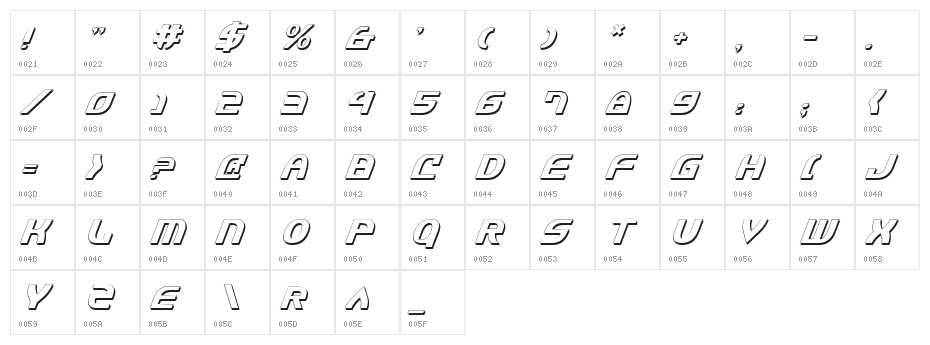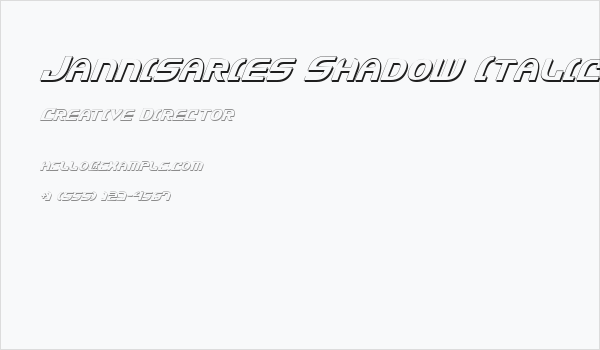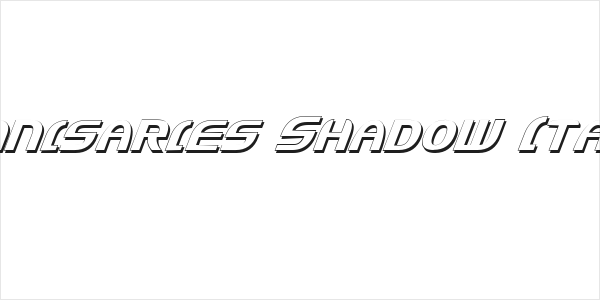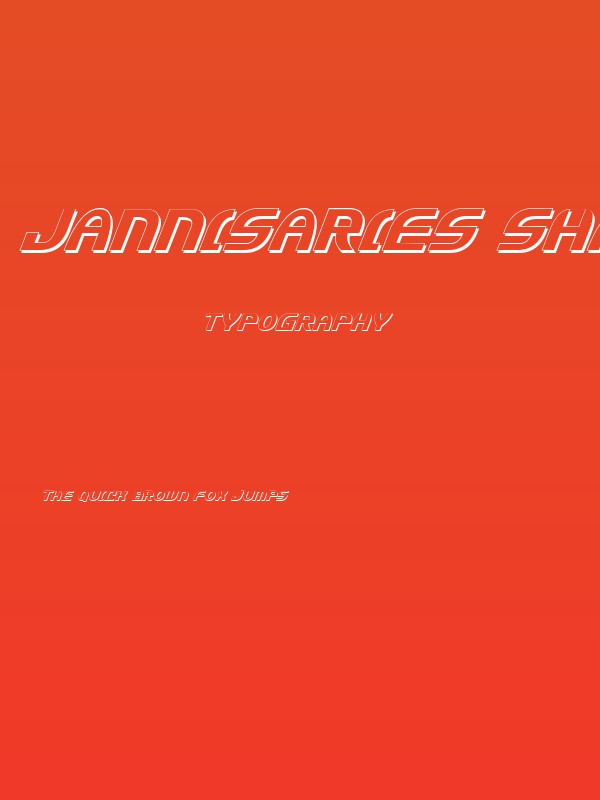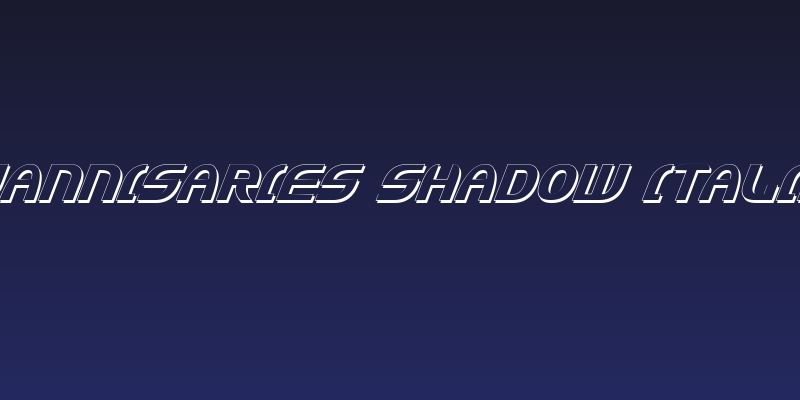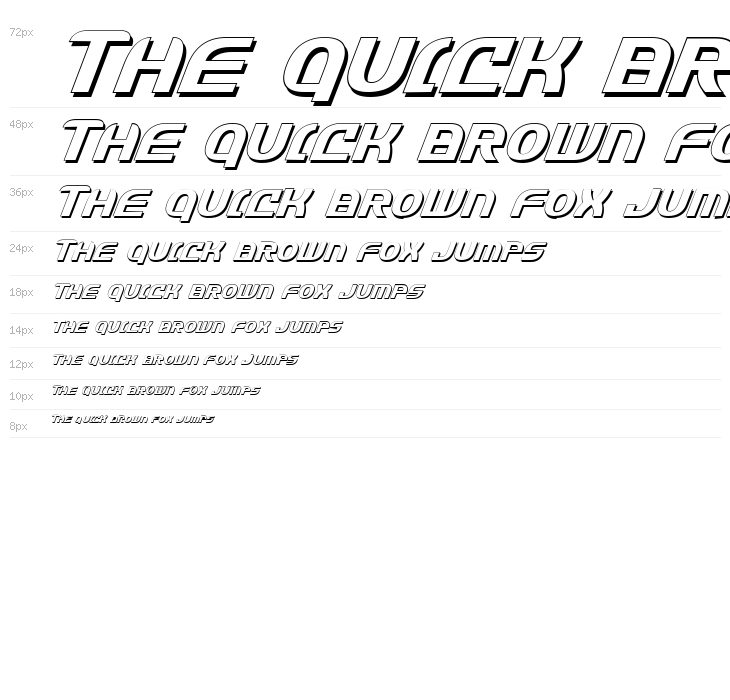
Jannisaries Shadow Italic Font
Jannisaries Shadow Italic Description
This font features a bold, italicized style with a distinct shadow effect that gives it a three-dimensional appearance. The characters are uppercase and lowercase, with numerals and a variety of special characters. The design is modern and dynamic, with a futuristic flair that makes it stand out. The shadowing adds depth and a sense of movement, making it ideal for eye-catching designs. The strokes are consistent in weight, providing a balanced look across all characters. This font is perfect for projects that require a bold statement and a touch of creativity.
| Proposed Projects | Ideal for logos, headlines, posters, and any design needing a bold, futuristic touch. |